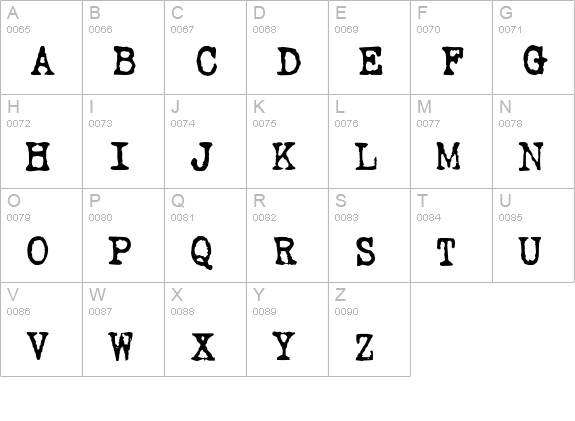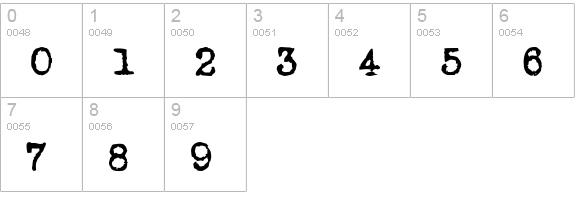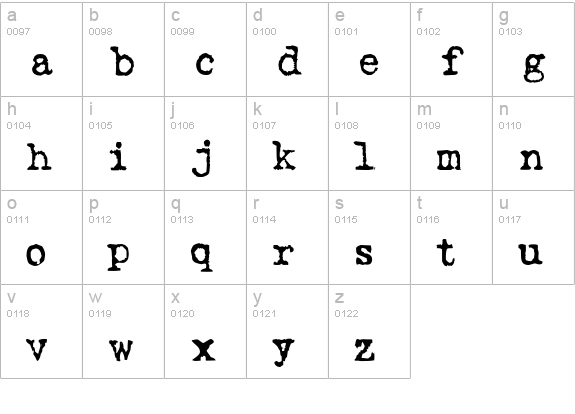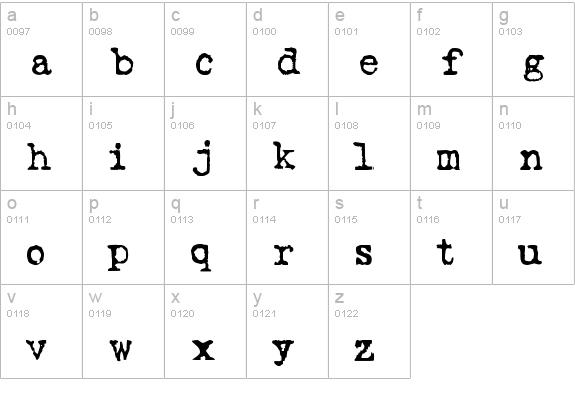
LoveLetterTypewriter font is a charming and nostalgic typeface that evokes the feel of old-fashioned love letters written on a vintage typewriter. With its unique blend of elegance and simplicity, this font is perfect for adding a touch of romance and authenticity to your designs. The classic typewriter style of LoveLetterTypewriter font brings a sense of warmth and intimacy to any project, whether it's a wedding invitation, a love note, or a heartfelt message. Best of all, LoveLetterTypewriter font is available for free download at FontsMarket.com. So go ahead and add a touch of timeless charm to your creations with this beautiful and versatile font. Let your words flow like ink on paper with LoveLetterTypewriter font.